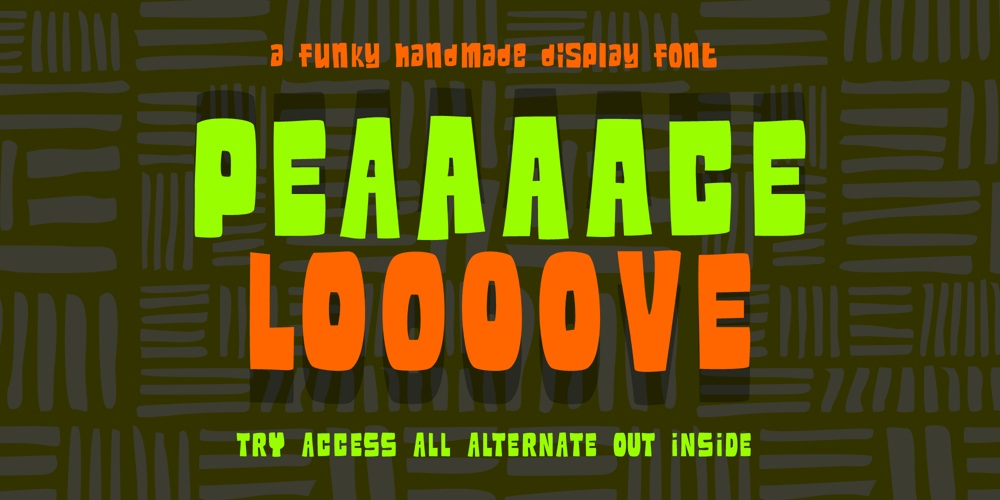
Peace Love Font Family was designed by Muhammad Jauhar Azmi and published by Brainware Graphic. Peace Love contains 1 styles and family package options. Peace Love is a funky handmade font, with opentype features like stylistic alternate which has five alternate variants. Peace Love font has an organic feel and handmade typography to the design project.